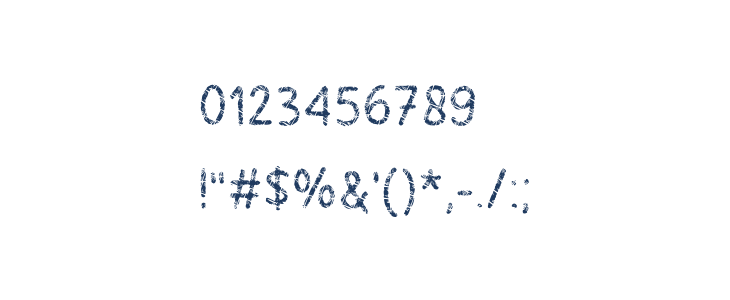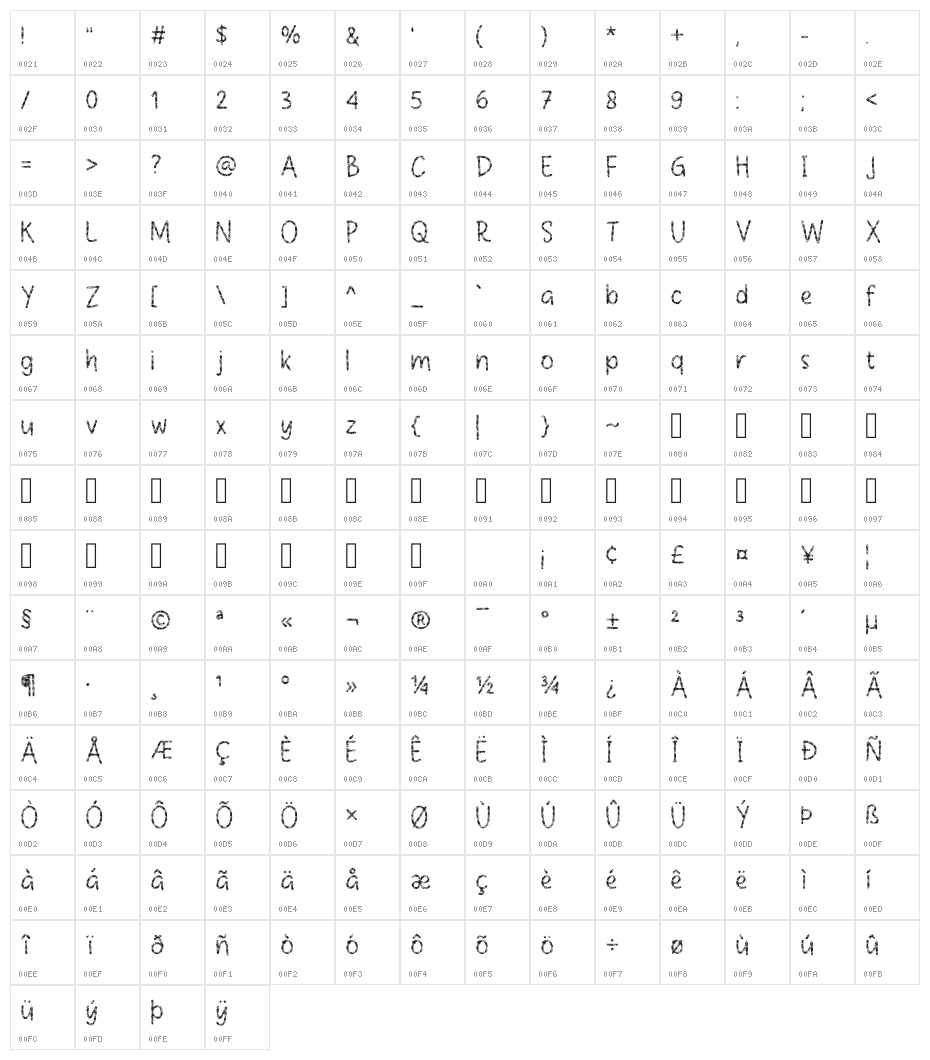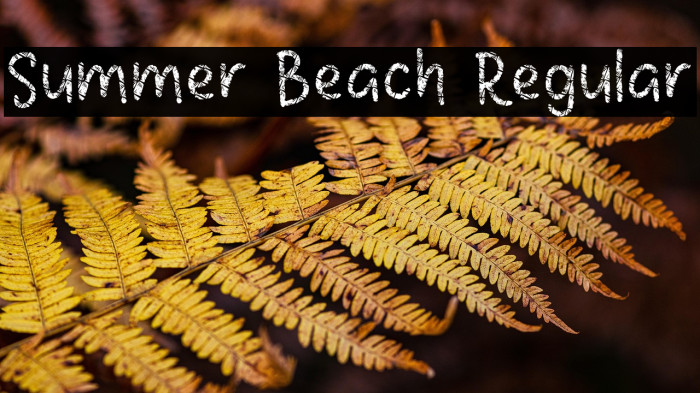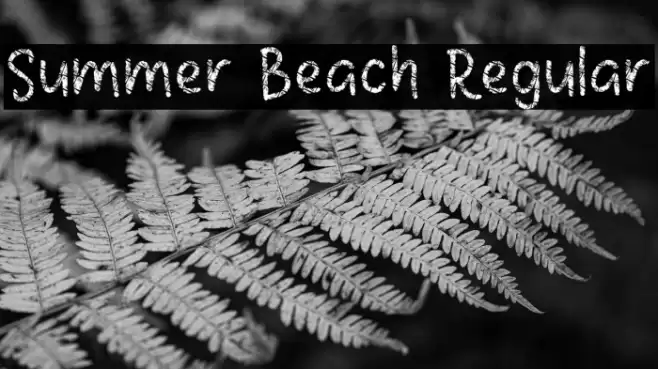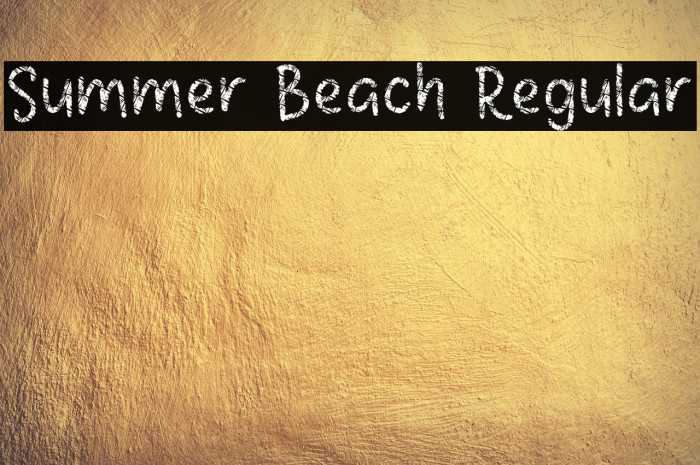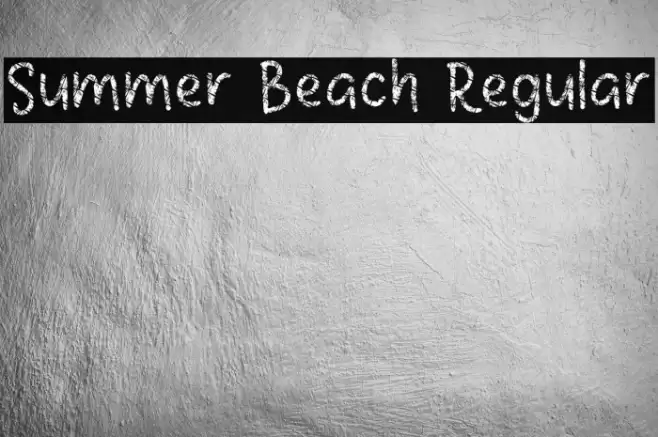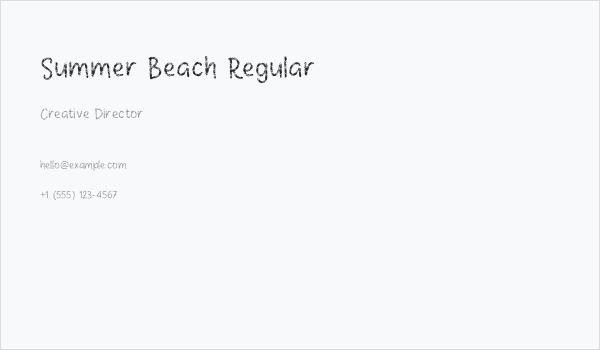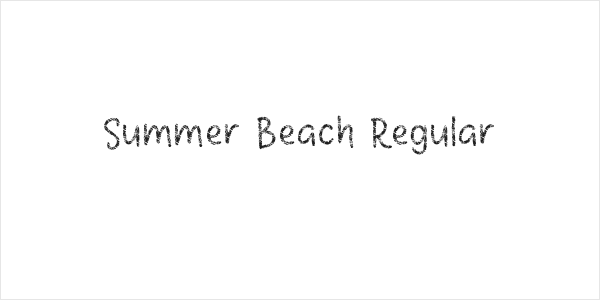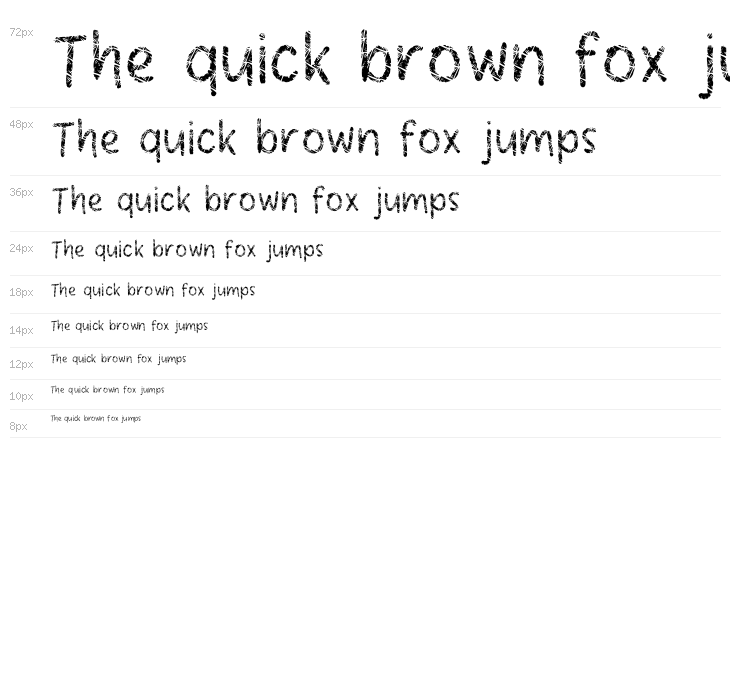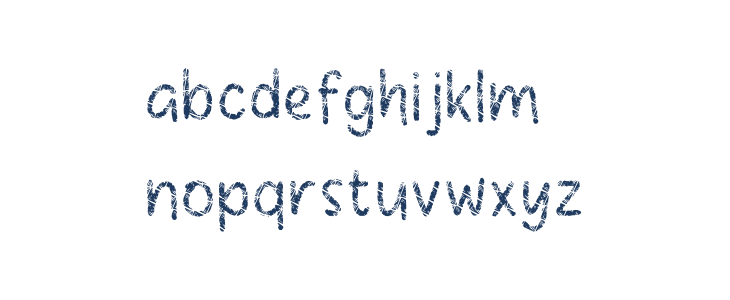
Summer Beach Regular Font
Summer Beach Regular Description
This font features a playful and textured design, reminiscent of sandy beaches and summer vibes. Each character is filled with a pattern that mimics the look of scattered sand or rough textures, giving it a unique and casual appearance. The letters are rounded and slightly irregular, adding to the informal and relaxed feel. This style is perfect for capturing the essence of summer, evoking images of beach parties, surfboards, and sunny days. The font maintains readability while offering a distinct visual appeal, making it suitable for creative and fun projects.